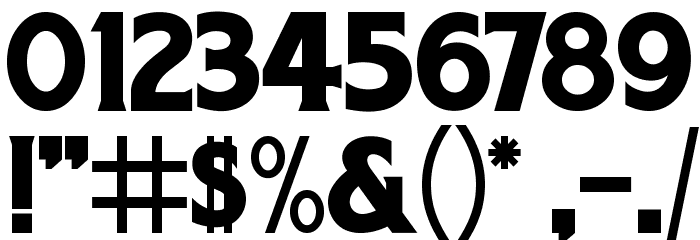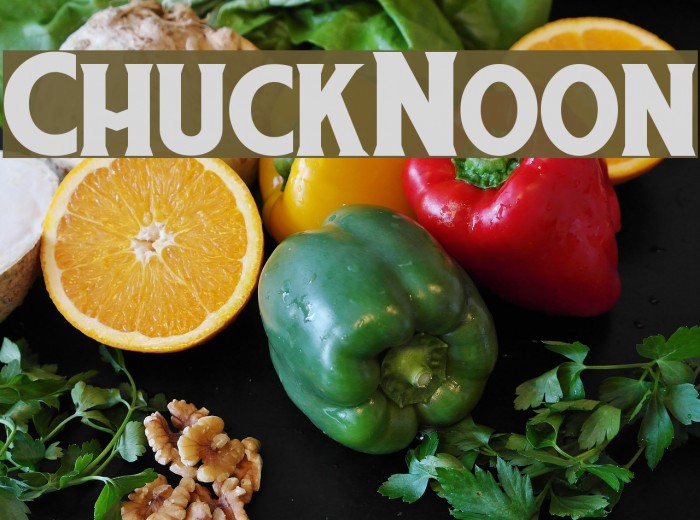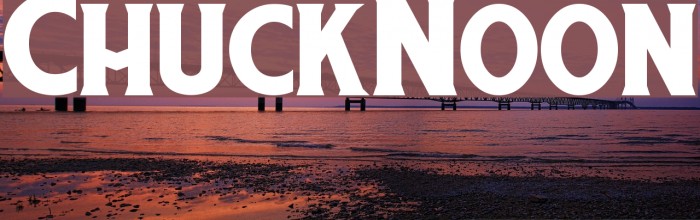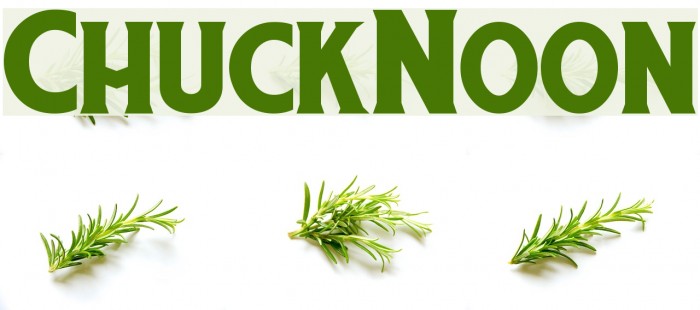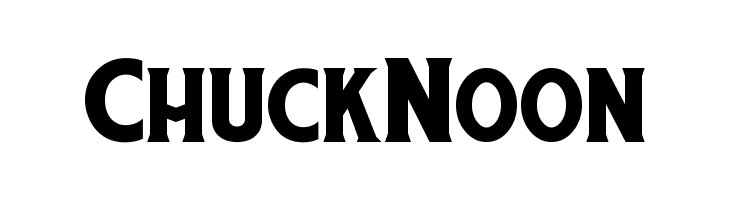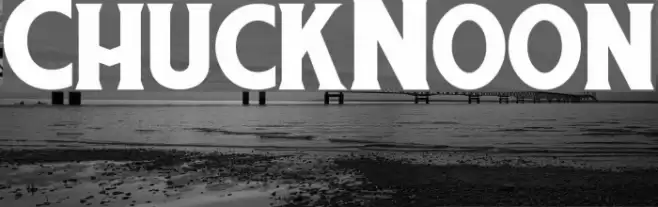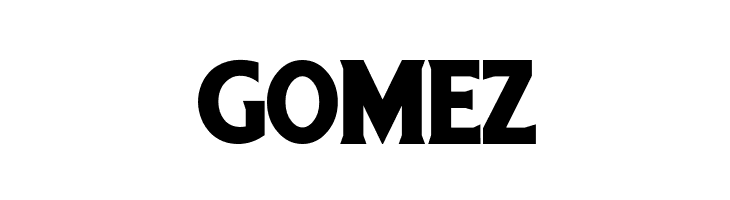
ChuckNoon Font
This font features bold, strong characters with a commanding presence. The uppercase letters are robust and impactful, making them ideal for attention-grabbing headlines. The lowercase letters maintain the same boldness, ensuring consistency across different text cases. The numerals are equally bold, providing a uniform look throughout. Special characters are designed with the same thickness, ensuring they stand out clearly. The overall style is modern with a touch of vintage flair, making it versatile for various design needs.
A bold, modern font with a vintage touch, perfect for impactful headlines.
- Proposed Projects: Ideal for branding, poster design, and any project requiring a strong visual impact.